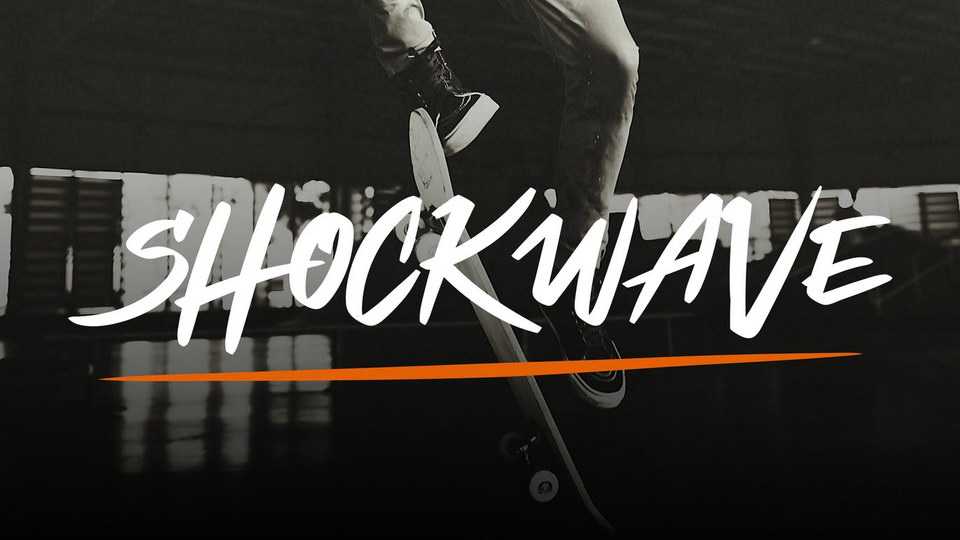
Download Shockwave font, a graffiti style typeface Taken from the urban spirit and rebellious teenager signature font. Shockwave will makes everything you wrote, blessed with unlimited energy.